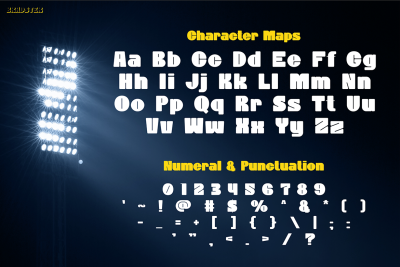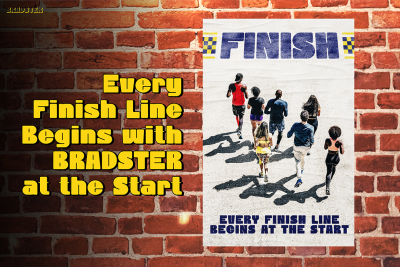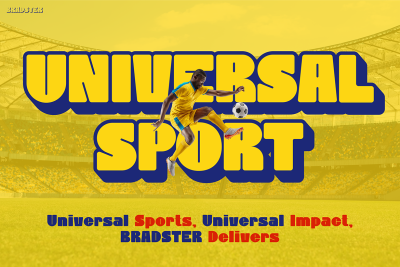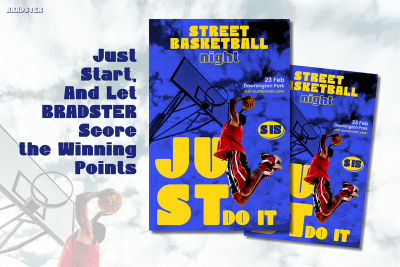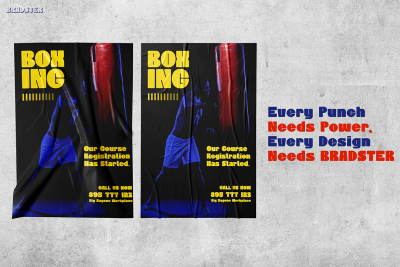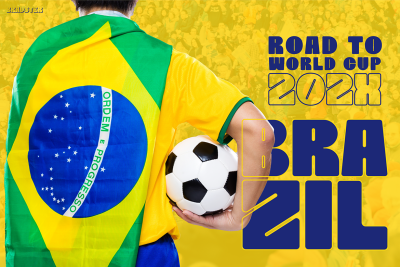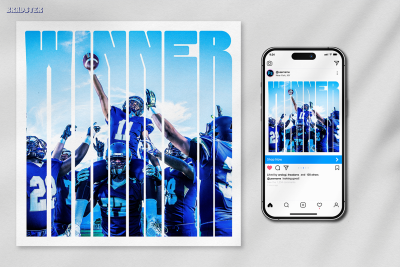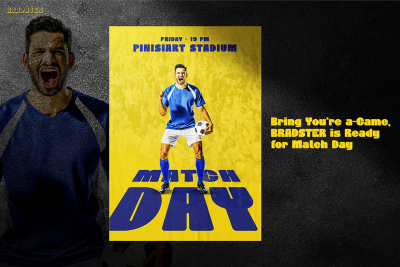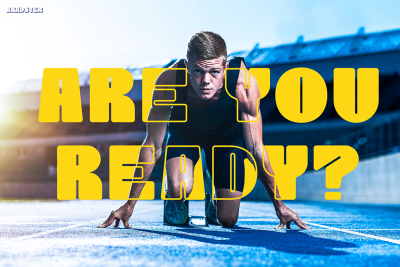
Sport Font BRADSTER is a bold, dynamic typeface inspired by athletic energy and modern design. Its blocky letters, rounded corners, and sturdy structure make it immediately eye-catching. The vibrant yellow and blue color scheme adds contrast, enhancing its visibility. As a result, this font is perfect for projects that need a bold and striking visual impact.
Additionally, BRADSTER has a youthful and sporty feel, effortlessly blending athletic aesthetics with modern style. While itโs bold, the soft edges give it a friendly touch, making it approachable. Therefore, this balance allows the font to be versatile for both playful and serious projects. Furthermore, the background imageryโsuch as kettlebells and boxing glovesโreinforces the fontโs connection to strength and fitness. Consequently, itโs perfect for projects related to sports, endurance, and active lifestyles.
Sport Font BRADSTER Perfect for:
BRADSTER is ideally suited for fitness and sports-related brands. Its bold and powerful design reflects traits like strength and resilience, making it perfect for gym logos, sports gear, and fitness apparel. Furthermore, the sport-inspired style adds a modern edge that appeals to active and urban audiences.
Additionally, BRADSTERโs sporty roots make it an excellent choice for youth-focused campaigns. Whether itโs for social media, posters, or event branding, this font speaks directly to a younger, active crowd. Its playful yet strong style works particularly well for high school or college-age marketing, youth sports teams, or music festivals. Moreover, the energetic look fits perfectly with the tastes of todayโs youth.
Streetwear brands thrive on bold, athletic-inspired designs, and BRADSTER fits perfectly. Its sport-inspired style pairs seamlessly with urban fashion, making it great for t-shirts, hats, or promotional materials. In addition, the fontโs chunky, bold lettering creates a strong visual identity, helping streetwear brands stand out in a crowded market.
BRADSTER is also ideal for promoting events, especially those centered around sports, music, or street culture. Its bold style ensures that flyers, posters, and social media content stand out from the competition. Whether promoting a boxing tournament, a fitness expo, or a music festival, BRADSTER adds energy and grit to your promotional materials.
In conclusion, Sport Font BRADSTER offers a bold, playful, and modern design. Its versatility makes it suitable for various industries, including fitness brands, youth campaigns, streetwear, event promotions, and gaming. Wherever you need bold impact, BRADSTER delivers the perfect solution.